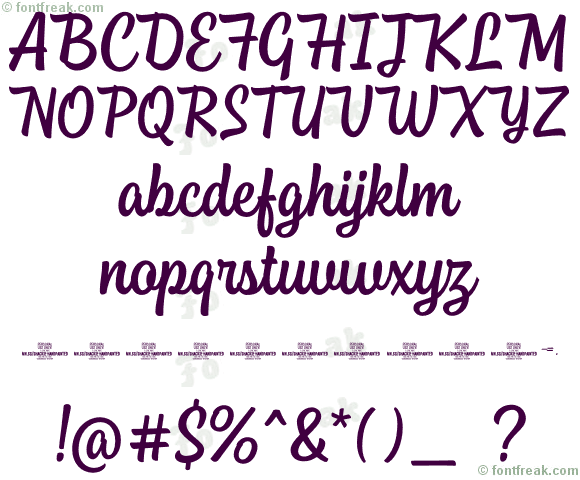
Shackie Handpainted PERSONAL Regular
Shackie Handpainted PERSONAL Regular by Mans Greback is a captivating handwritten font that exudes a charming and personal touch. This font falls into the category of decorative scripts, characterized by its fluid strokes and organic, hand-painted aesthetic. The design showcases a moderate stroke weight, providing a delightful balance between elegance and readability. The contrasting curves and sharp angles create a dynamic visual rhythm, while the generous spacing between characters enhances legibility, making it perfect for various applications.
This font is well-suited for a range of creative projects. It shines in wedding invitations, where its whimsical style adds a romantic flair. Additionally, Shackie Handpainted PERSONAL Regular is ideal for crafting eye-catching greeting cards, where its unique personality can convey heartfelt messages. Small business owners will find it beneficial for branding materials, such as logos and menus, helping to create a memorable identity. Content creators can utilize this font in social media graphics to add a personal touch that resonates with their audience.
The target audience for this font includes graphic designers seeking distinctive typefaces, small business owners looking to enhance their branding, and content creators aiming for a unique visual style.
What makes Shackie Handpainted PERSONAL Regular stand out is its ability to evoke warmth and authenticity through its hand-painted appearance. This font offers a unique blend of creativity and professionalism, making it a versatile choice for anyone looking to make a lasting impression. With its free availability, users can easily access the Shackie Handpainted PERSONAL Regular font free download, allowing for endless creative possibilities in their projects.